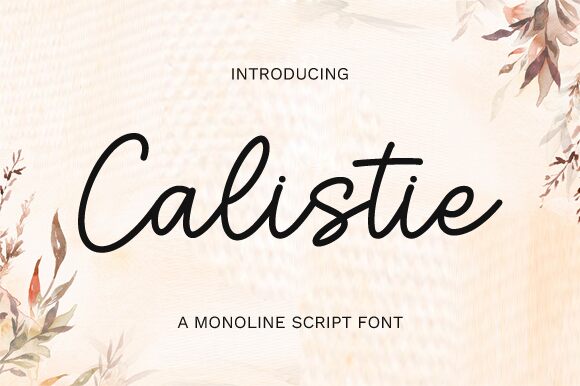
Calistie
Calistie, crafted by the creative minds at Graphix Line Studio, is a semi-light handwritten font that exudes charm and personal touch in every curve. Its elegant strokes evoke the intimacy of hand-penned letters, while maintaining a clean and legible line that makes it as versatile as it is beautiful.
This font's aesthetic appeal lies in its blend of casual flair with sophisticated grace, making it an excellent choice for a wide range of projects—from branding to personal invitations. Its semi-light weight provides a breezy, unburdened feel that communicates with light-hearted elegance.
Whether you're looking to add a human touch to digital designs or aiming for something that stands out in print, Calistie's stylish demeanor is poised to bring your creative visions to life with both warmth and professionalism.